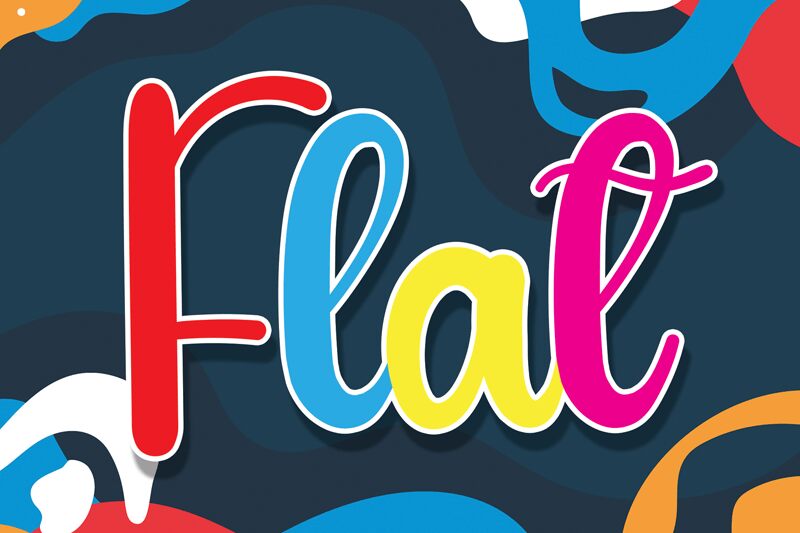
Flat
Flat is a smooth and flowing font with a distinct brush-like quality. Designed by Andi Moz, this typeface exudes an effortless elegance, making it a versatile choice for a wide range of design applications.
The graceful curves and organic strokes give the text a sense of movement, lending a touch of sophistication to any project. Whether used for branding, editorial design, or creative typography, Flat's seamless aesthetic can elevate the visual appeal and enhance the overall aesthetic.
Its versatility allows it to seamlessly integrate into various design contexts, from modern websites to captivating print materials.